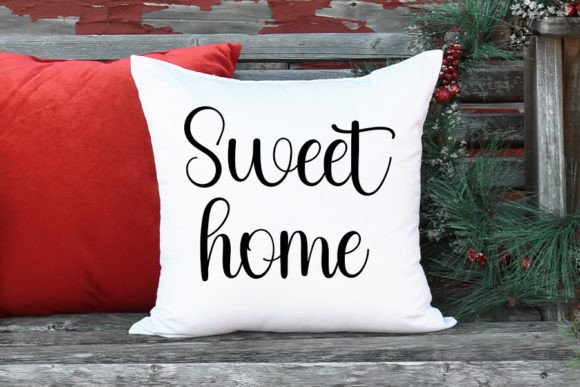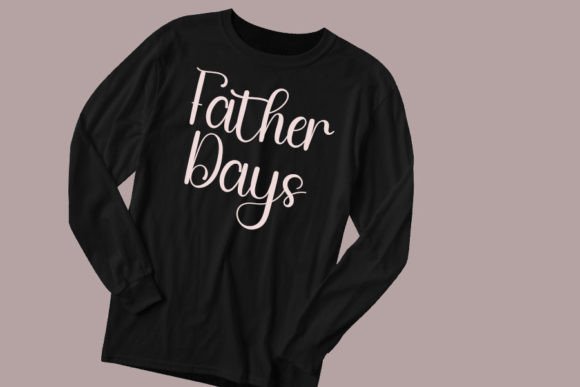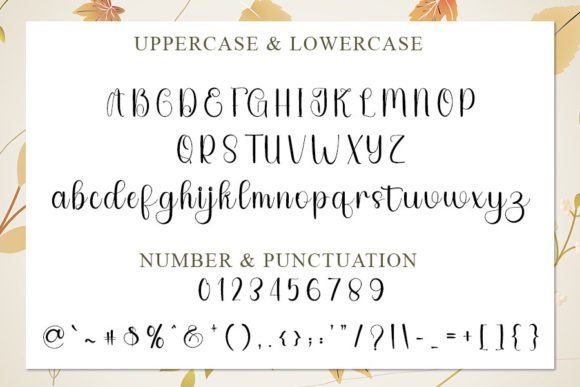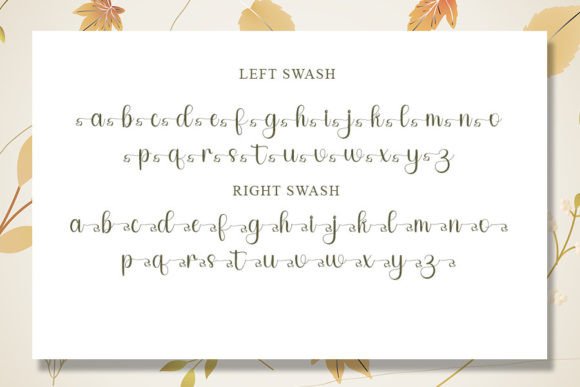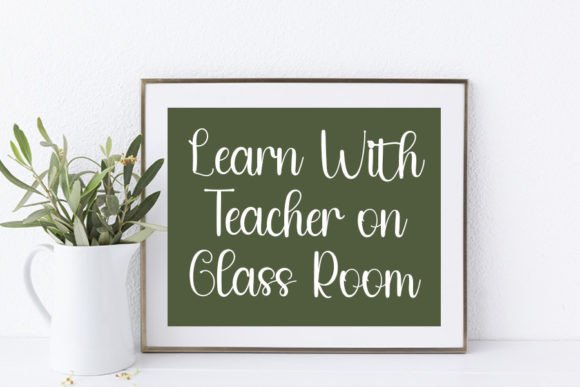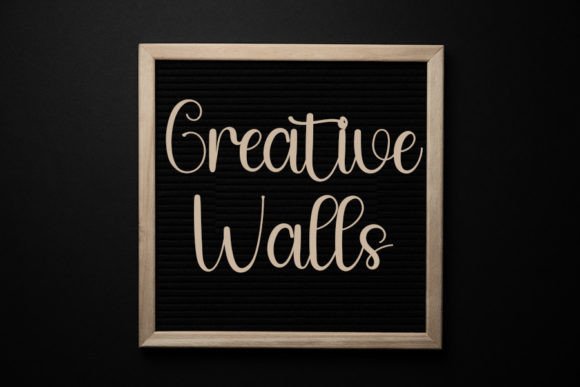
Daddy Font: Elevate Your Designs with Elegance and Sophistication
In the world of typography, a font can make or break a design. For those seeking a touch of elegance and refinement, the Daddy Font is an exceptional choice. This beautiful, handwritten font is perfect for designers and crafters looking to add a classy and modern flair to their projects. Whether you’re creating logos, branding materials, invitations, stationery, wedding designs, social media posts, or more, Daddy Font is sure to impress.
The Characteristics of Daddy Font
Daddy Font boasts a range of characteristics that set it apart from other fonts. Its refined, handwritten style exudes sophistication and luxury, making it ideal for high-end designs. The font’s classy and modern aesthetic ensures that it will complement a wide variety of design themes and styles. Furthermore, Daddy Font is PUA (Private Use Area) encoded, which means that accessing its extensive range of glyphs and ligatures is incredibly easy.
For those unfamiliar with typography, PUA encoding refers to a standardized method of accessing a font’s special characters, such as glyphs and ligatures. In traditional font encoding, these special characters may be difficult to access or require specific software. However, with PUA encoding, designers can easily access these characters using a standard keyboard layout. This feature makes Daddy Font incredibly user-friendly and versatile.
Uses for Daddy Font
The versatility of Daddy Font is one of its most significant advantages. Here are just a few examples of how you can use this exceptional font:
- Logos and Branding: Create a lasting impression with a custom logo or branding materials that exude elegance and sophistication.
- Invitations and Stationery: Add a touch of refinement to your invitations, stationery, and greeting cards.
- Wedding Designs: Make your wedding designs truly unforgettable with the romantic and elegant style of Daddy Font.
- Social Media Posts: Elevate your social media presence with stylish and eye-catching posts that showcase your brand’s personality.
- And More: From packaging design to advertising materials, Daddy Font is perfect for any project that requires a touch of class and sophistication.
Why Choose Daddy Font?
With so many fonts available, why choose Daddy Font? Here are just a few reasons why designers and crafters love this exceptional font:
- Unique Style: Daddy Font offers a distinctive, handwritten style that sets it apart from more traditional fonts.
- Ease of Use: With PUA encoding, accessing the font’s special characters is incredibly easy.
- Versatility: Daddy Font is suitable for a wide range of design projects, from logos and branding to social media posts and wedding designs.
- High-Quality Design: The font is meticulously crafted to ensure that it looks beautiful and elegant in any design.
In conclusion, Daddy Font is an exceptional choice for designers and crafters seeking to add a touch of elegance and sophistication to their projects. With its refined, handwritten style, PUA encoding, and versatility, this font is perfect for a wide range of design applications. Whether you’re creating logos, branding materials, invitations, or social media posts, Daddy Font is sure to elevate your designs and leave a lasting impression.